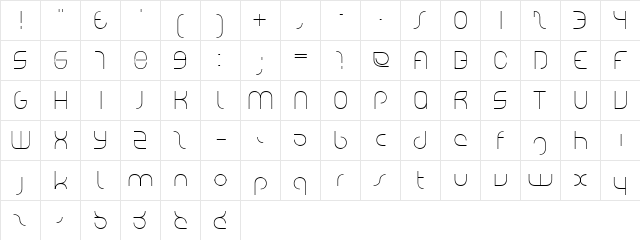
eko Regular
| Designer | Laurent Doucet |
Design Context for eko Typeface
eko takes a measured approach to typography — its balanced proportions and neutral character make it a reliable workhorse for both digital and print work.